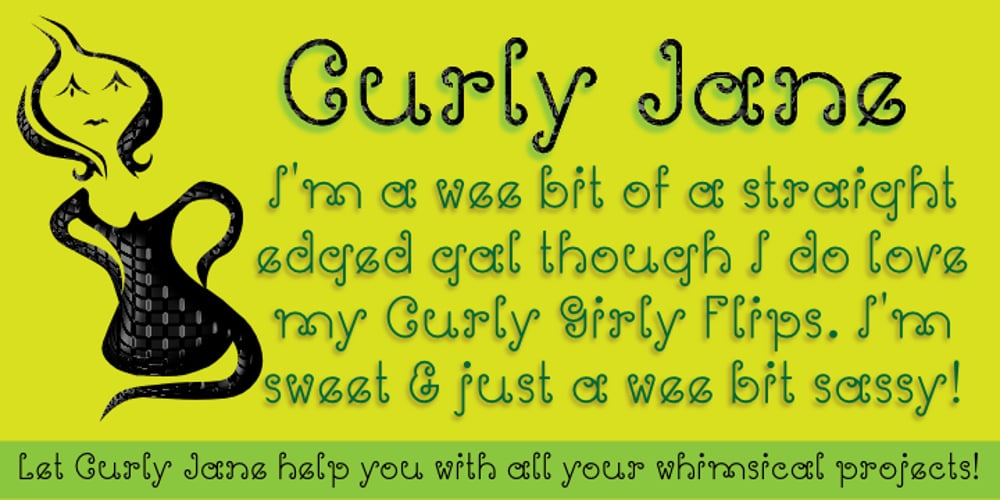
Curly Jane Font Family was designed by Denise Koehler and published by Deniart Systems. Curly Jane contains 1 styles and family package options. Curly Jane is a whimsical typeface combining straight lines with a little curl at the ends. Great for headlines, humorous notes, greetings, whatever hits your whimsy because simply said, it’s simply Curly. Curly Jane includes a large assortment of extended characters to support many of Europe’s languages, including Czech, Danish, Dutch, Esperanto, Finnish, French, German, Italian, Hungarian, Polish, Portuguese, Romanian, Spanish, Swedish, Turkish & Welsh.